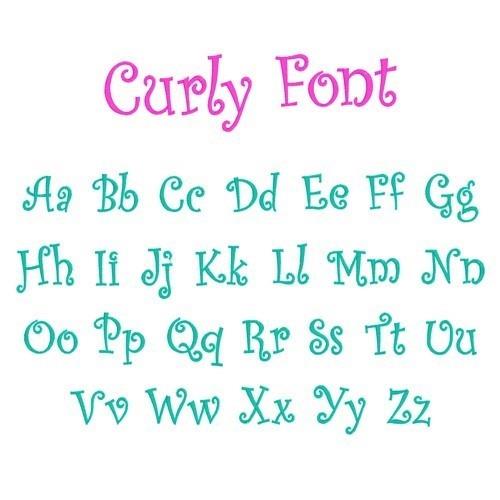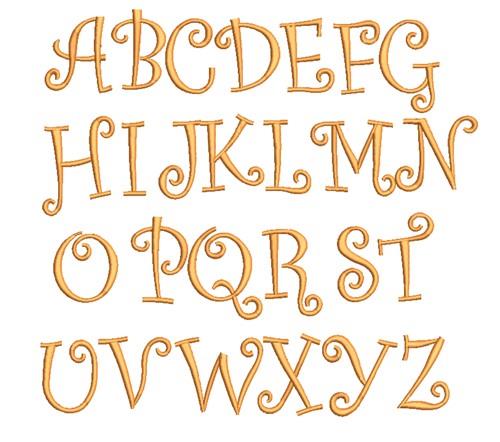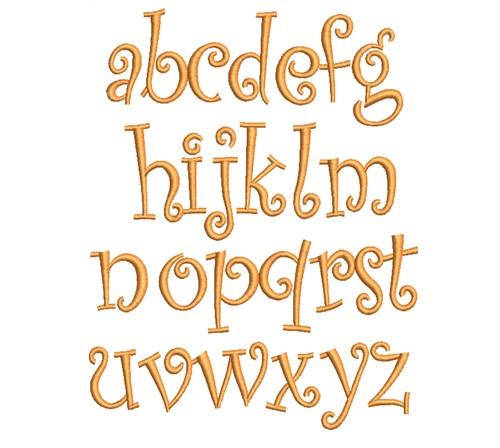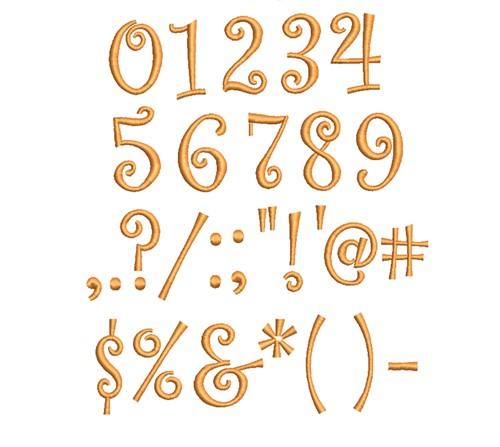
Maya Kreations is happy to present Curly Font machine embroidery font which has Playful machine embroidery font with a curly design, perfect for decorating playful items like children's clothes or accessories. Available in PES, DST & 6 other formats. included. If you would like to view more embroidery fonts and alphabets please search our embroidery fonts page.